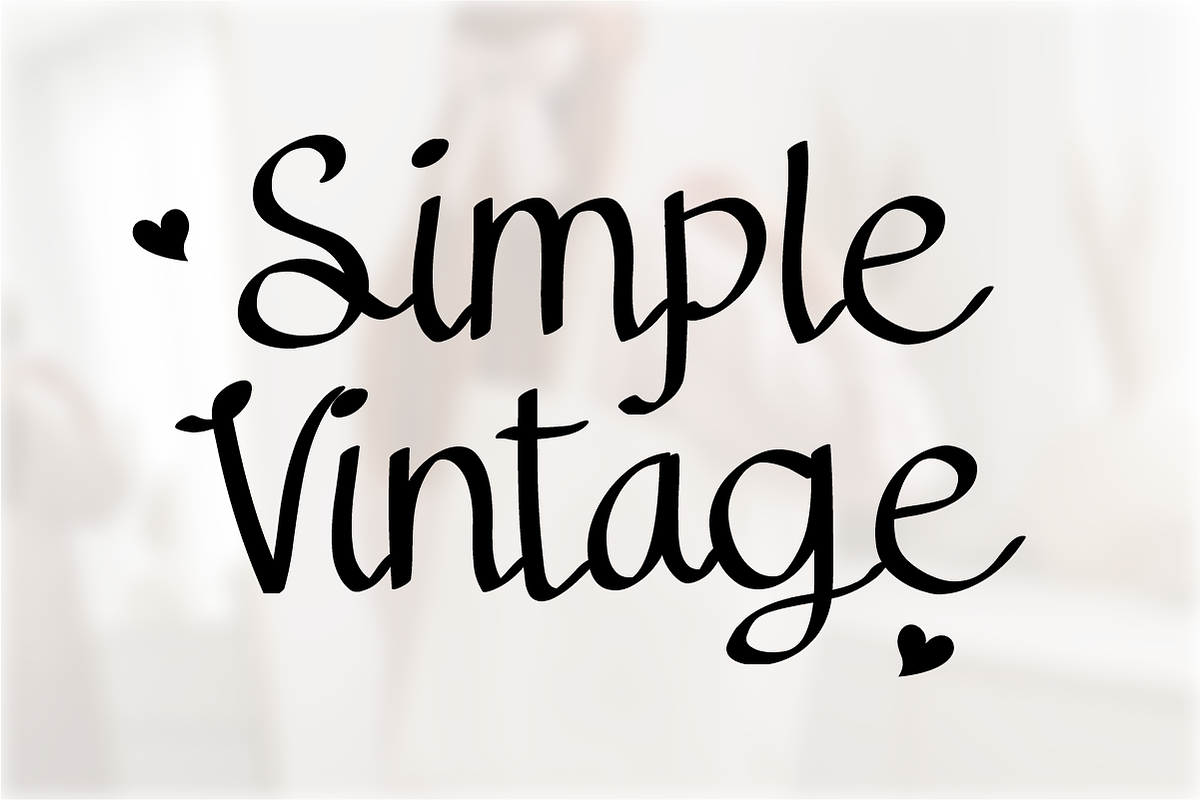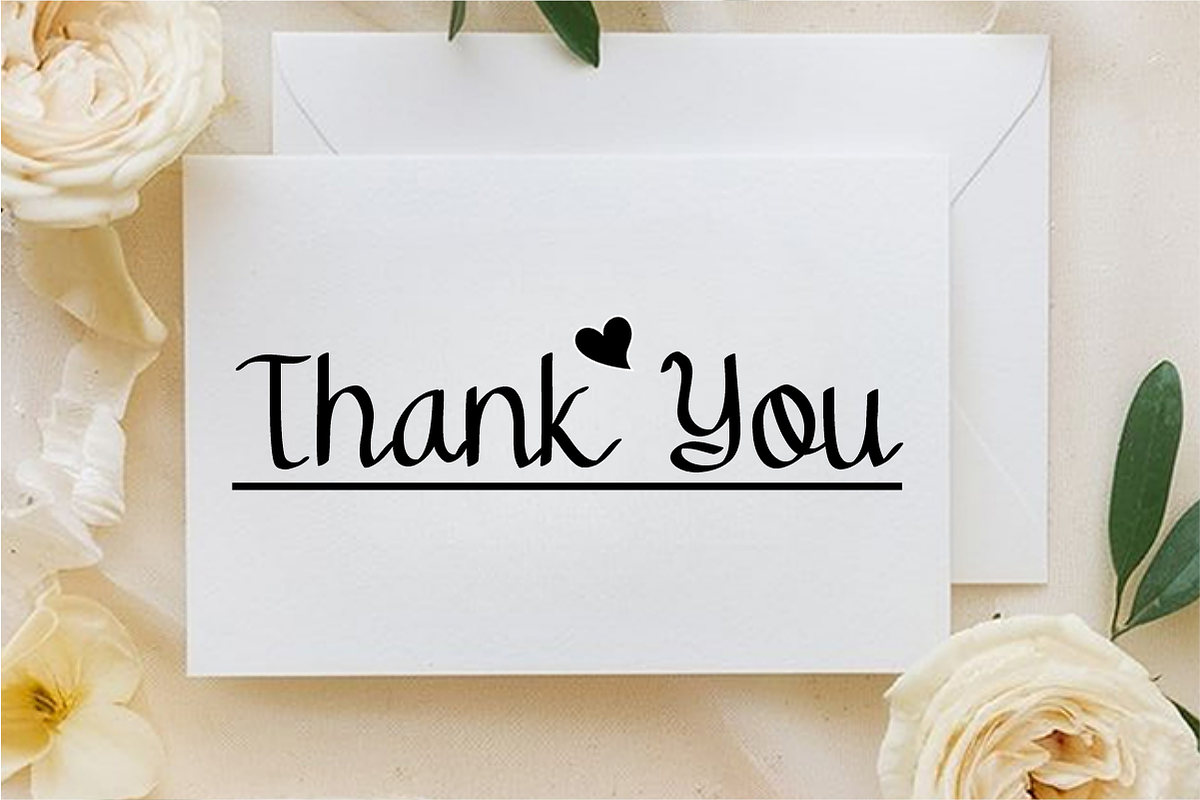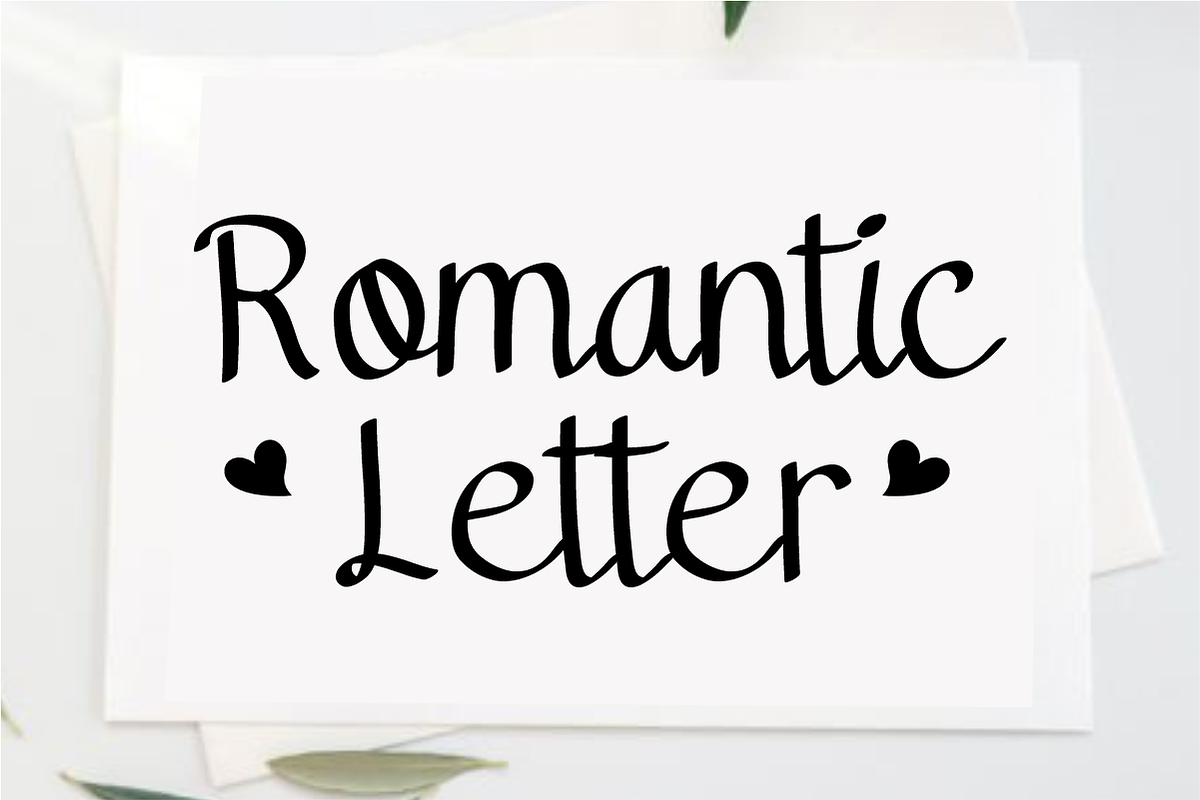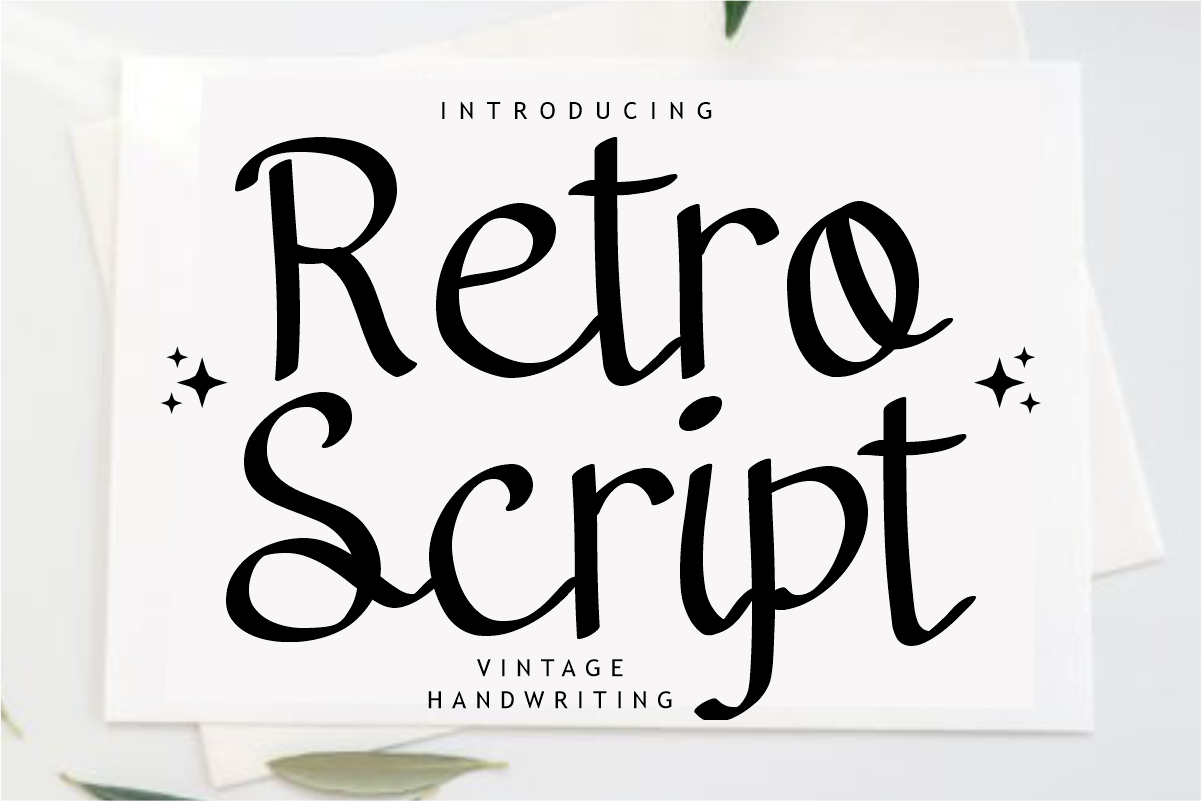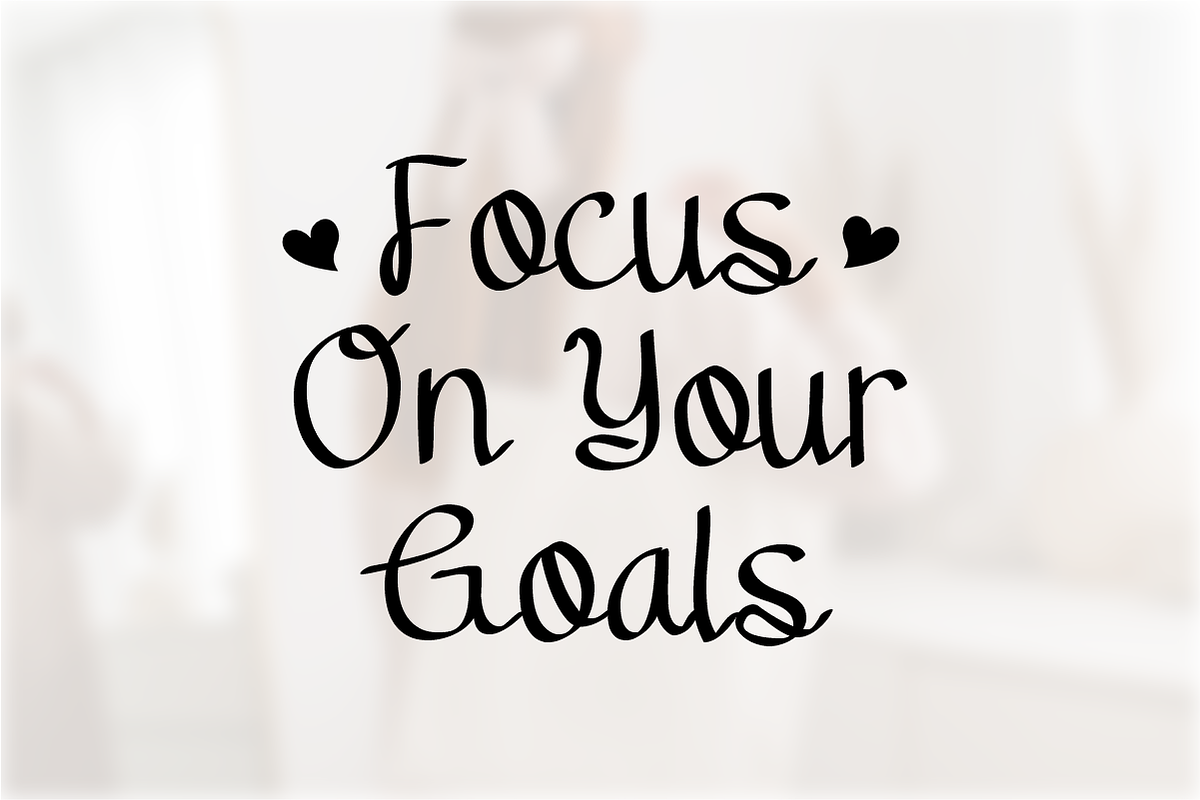
Retro Script - Handwriting Font
✨ Hey Creative Souls! Meet Retro Script - The Ultimate Vintage Handwriting Font! ✍️
Looking to add a warm, personal touch with a gorgeous splash of nostalgic charm? Retro Script is a premium handwritten font featuring smooth, elegant curves and a beautifully casual, flowing rhythm. It perfectly blends the free-spirited vibe of classic retro lettering with clean, modern lines.
It's sweet, stylish, and meticulously crafted for creators who want their designs to feel cozy, authentic, and effortlessly chic!
✨ What’s Packed in the Kit:
_ 🔠 _\Expressive Capital Letters (A-Z)\\* – Bold, beautiful, and full of handmade personality.
_ 🔡 _\Charming Lowercase Letters (a-z)\\* – Smooth, flowing connections for natural text.
_ 🔢 _\Matching Numbers (0-9)\\* – Perfect for wedding dates, planner pages, and milestones.
_ 🔣 _\Simple Symbols & Punctuation\\* – The essential basics to wrap up your thoughts seamlessly.
🎯 Perfect For Your Next Dream Project:
\* 💌 Elegant Wedding Invitations, Greeting Cards & Save-the-Dates
\* 👕 Trendy Retro T-Shirts, Tote Bags, and Feminine Apparel Branding
\* 🎨 Clean SVG Cut Files for Cricut & Silhouette (Super smooth lines for flawless cutting!)
\* 🥤 Chic Branding Logos, Aesthetic Product Packaging & Social Media Quotes
\* 📖 Digital Planners, Bullet Journals, and Cozy Handmade Crafts